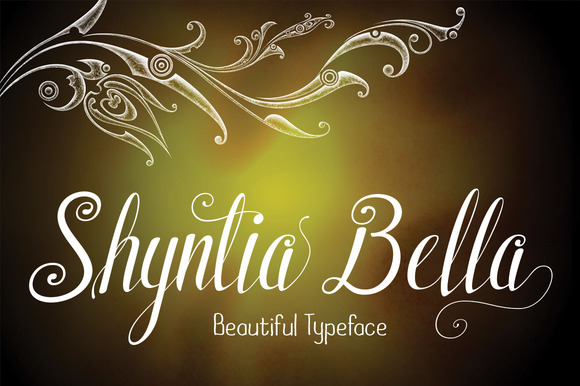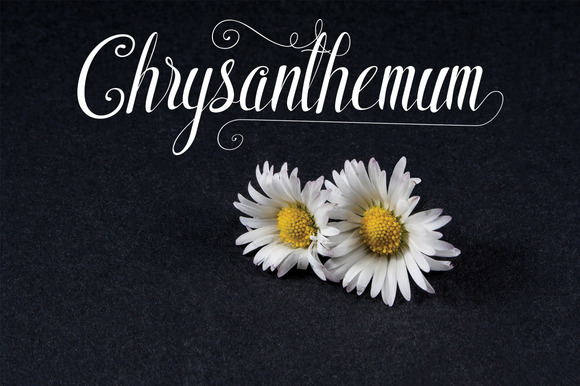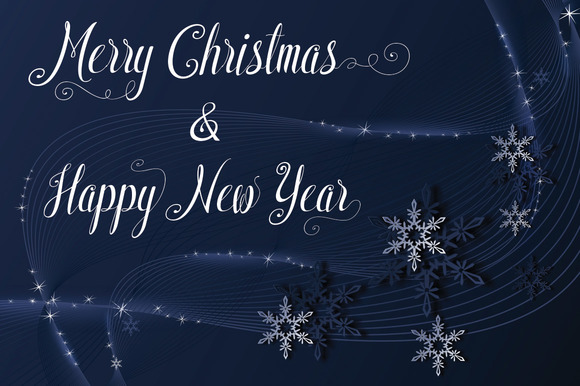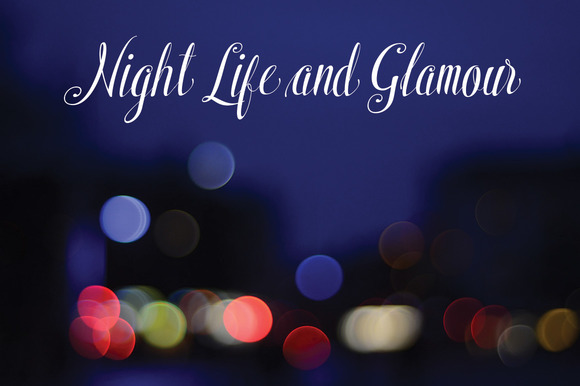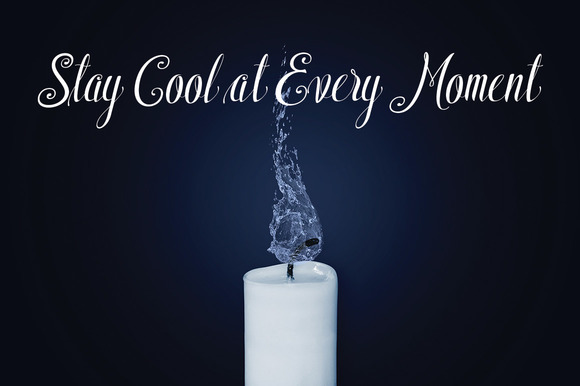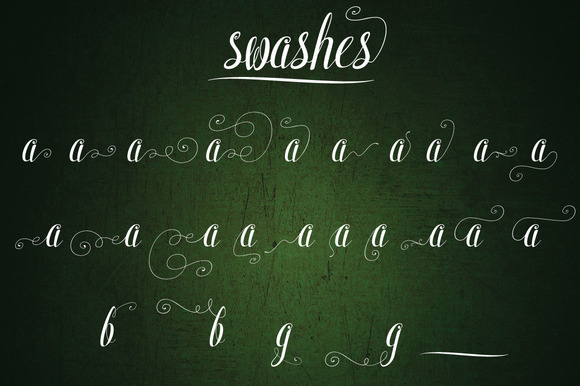
Shyntia Bella Font
About Shyntia Bella Font
Shyntia Bella is a stunning handwritten font that contains 1300 unique characters!
Shynia Bella is PUA encoded and completely made by hand. The font features hundreds of swashes and swooshes and is great for creating highly personalized designs.